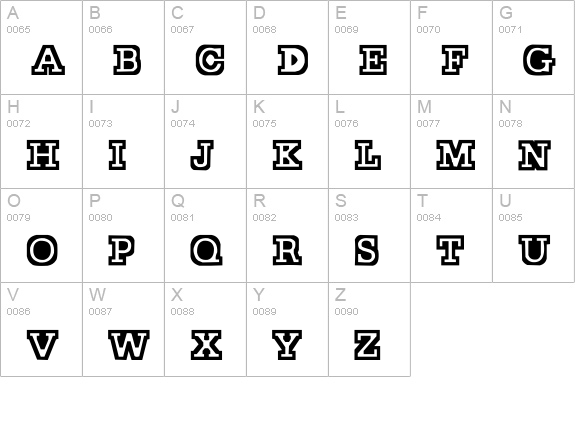
Introducing Stocky font - a bold and versatile typeface that exudes strength and stability. With its sturdy design and clean lines, Stocky is perfect for creating eye-catching headlines, logos, and branding materials. This modern and impactful font is sure to make a statement in any design project. What's even better is that Stocky font is available for free download at FontsMarket.com. So you can easily access this powerful typeface to elevate your designs without any cost. Don't miss out on this opportunity to add Stocky font to your font library and bring a bold edge to your creations. Download now and start unleashing the potential of this striking font in your projects.